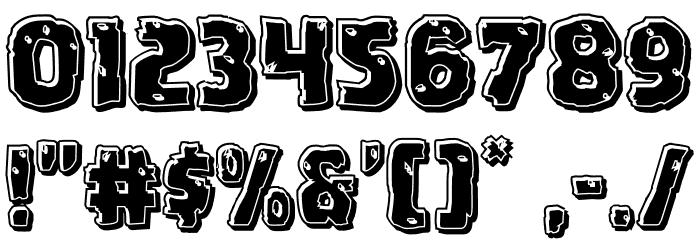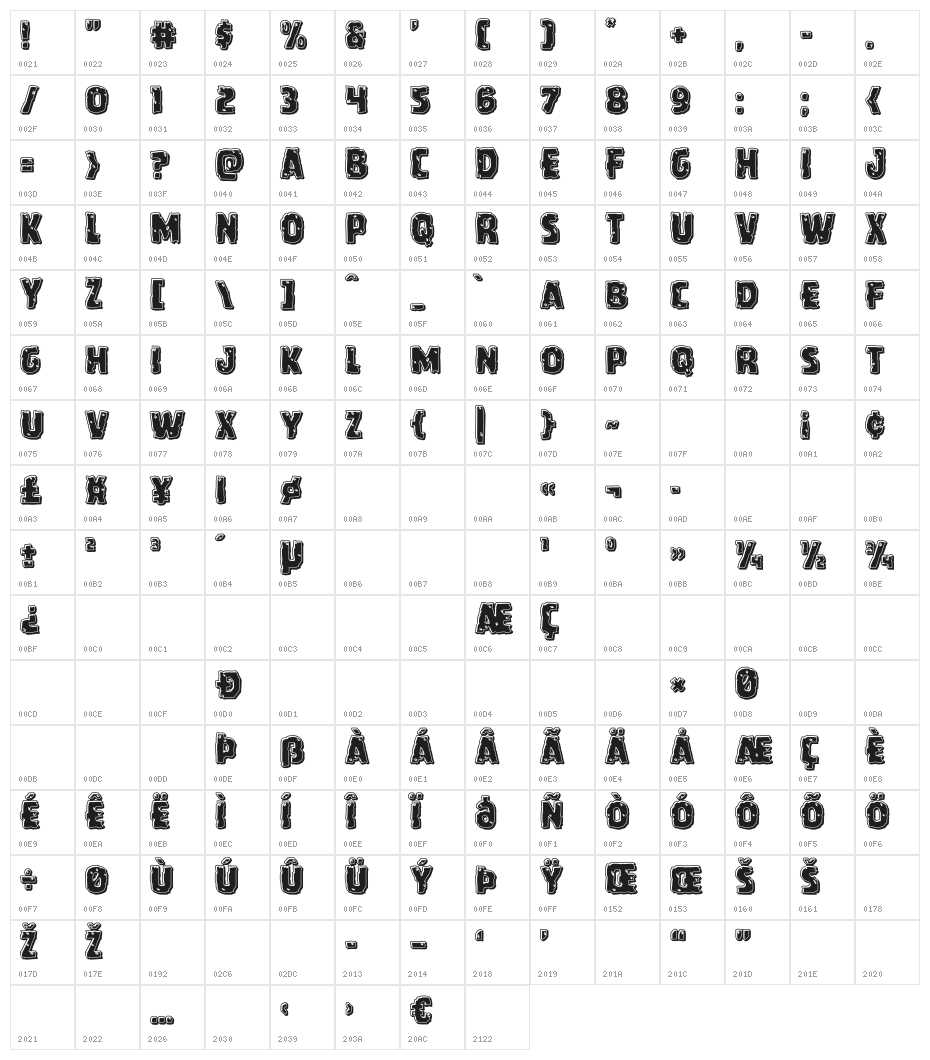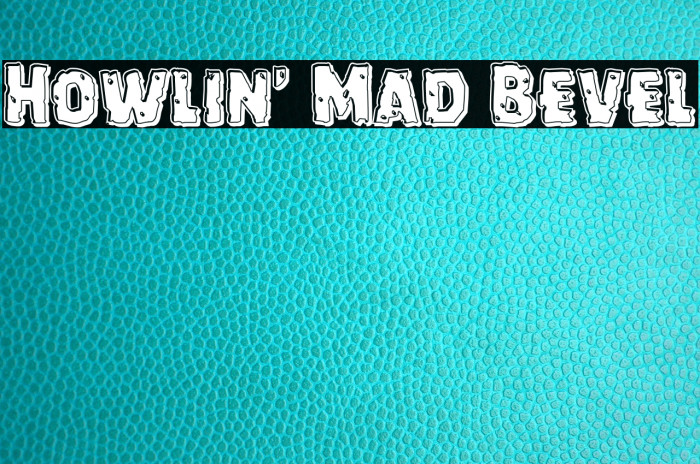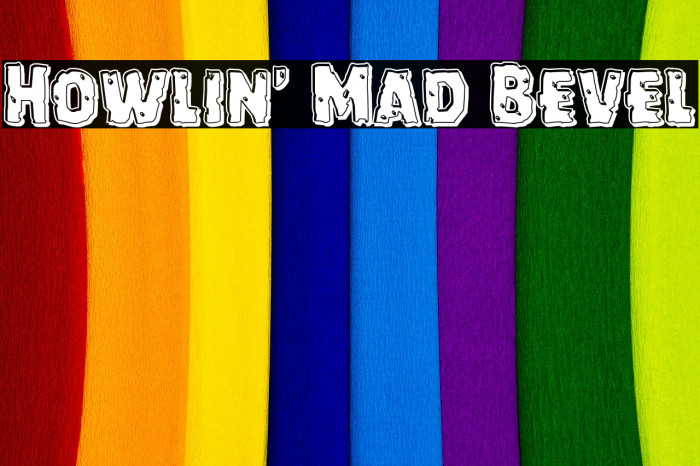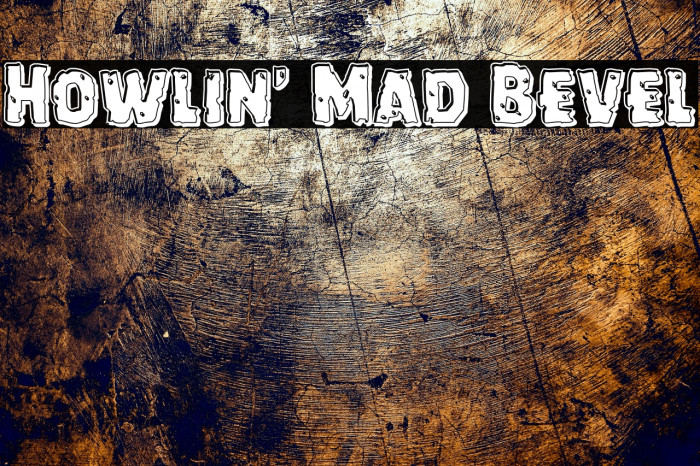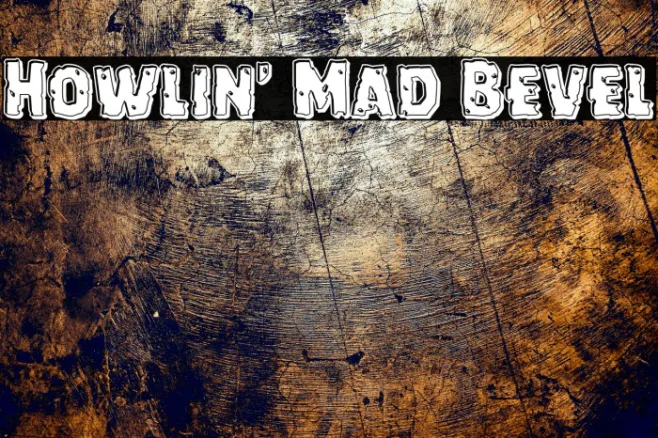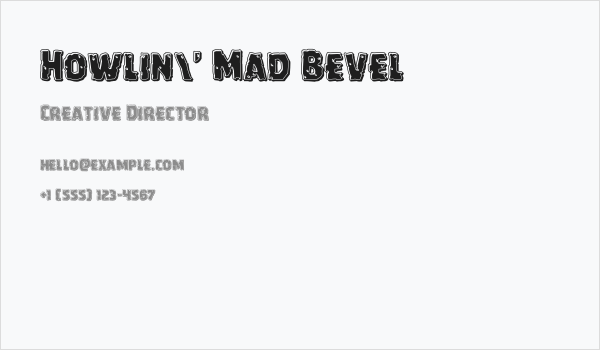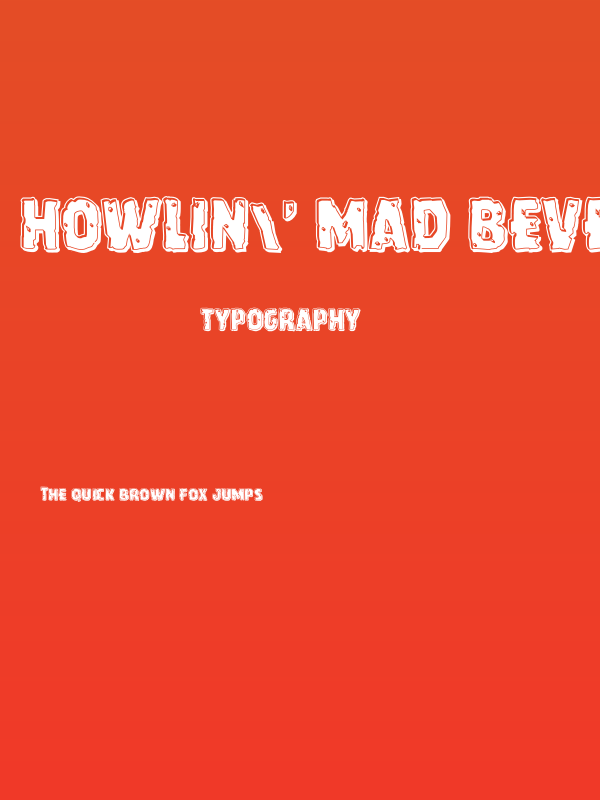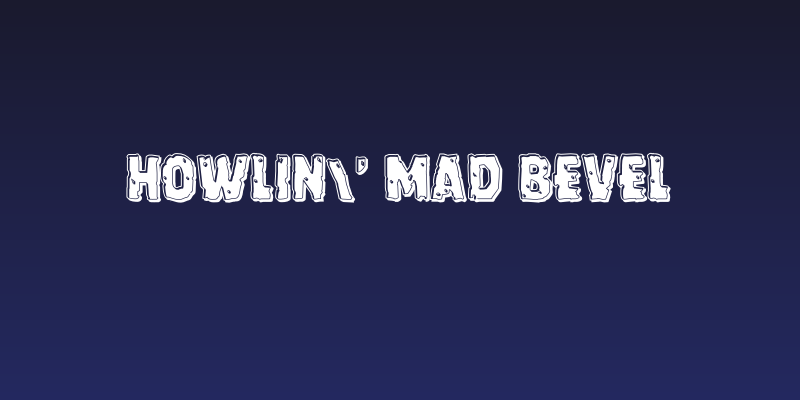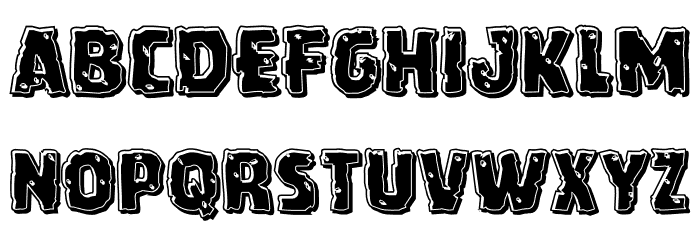
Howlin' Mad Bevel Font
Howlin' Mad Bevel Description
This font features a bold, rugged design with a three-dimensional beveled effect that gives each character a striking, embossed appearance. The letters are heavily outlined, creating a strong contrast between the foreground and background. The irregular, distressed edges add a sense of movement and energy, making it ideal for eye-catching designs. The font maintains a consistent width and height across all characters, ensuring uniformity while the unique texture adds a playful, dynamic feel. Its bold presence makes it suitable for projects that require a standout visual impact.
| Proposed Projects | Ideal for posters, album covers, video game graphics, and any project needing a bold, energetic typeface. |